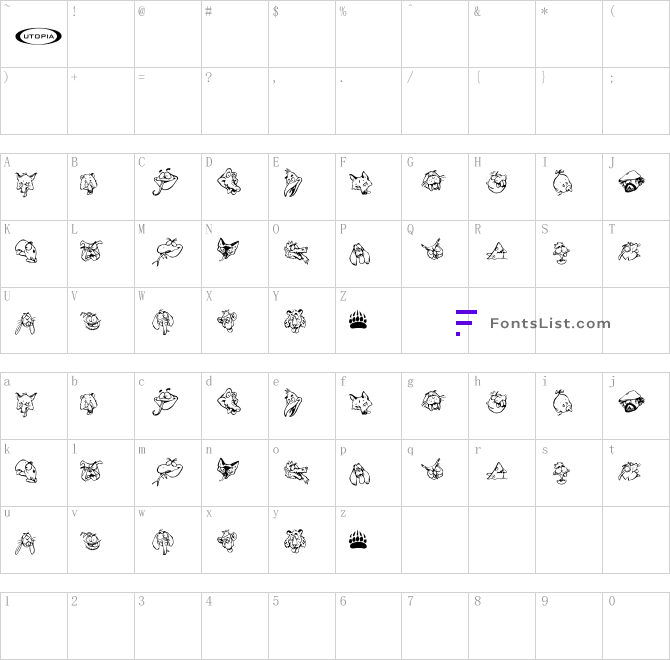
- Font Name:Bearpaw Bats
Bearpaw-Bats.ttf is a very beautiful artistic font, Bearpaw-Bats.ttf is widely used in the design and printing of various books and pictures,Bearpaw-Bats.ttf has a strong visual impact,Bearpaw-Bats.ttf is a commonly used font in newspapers, magazines and books, and is used in posters, e-commerce Poster design, store design, logo design, font design and other fields.Bearpaw-Bats.